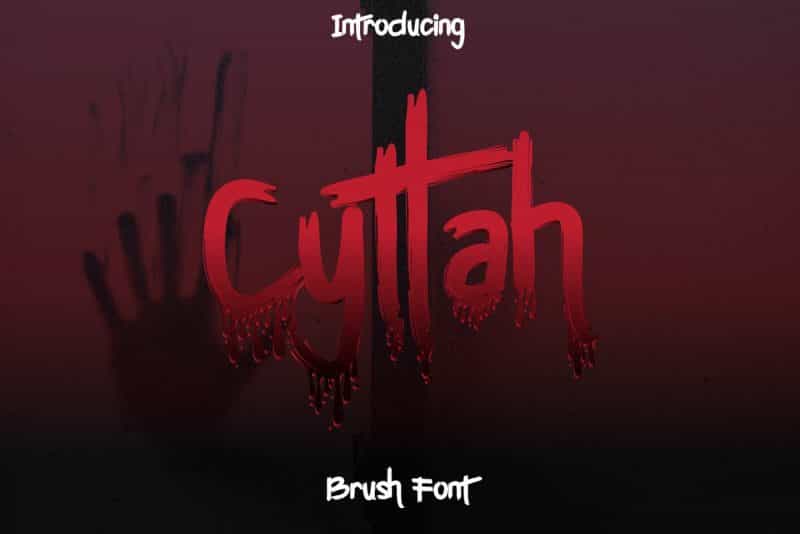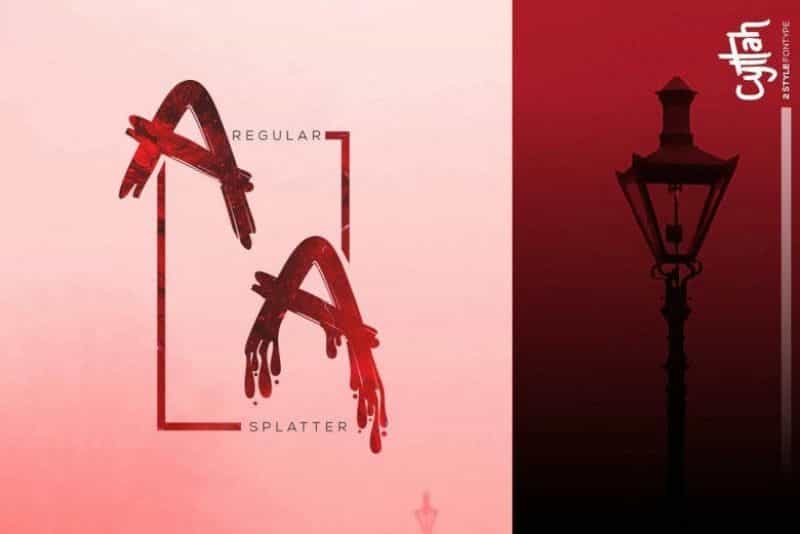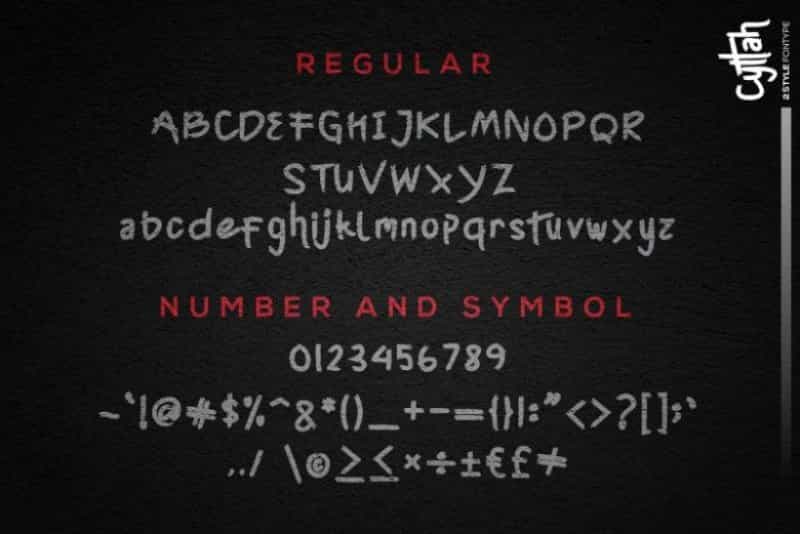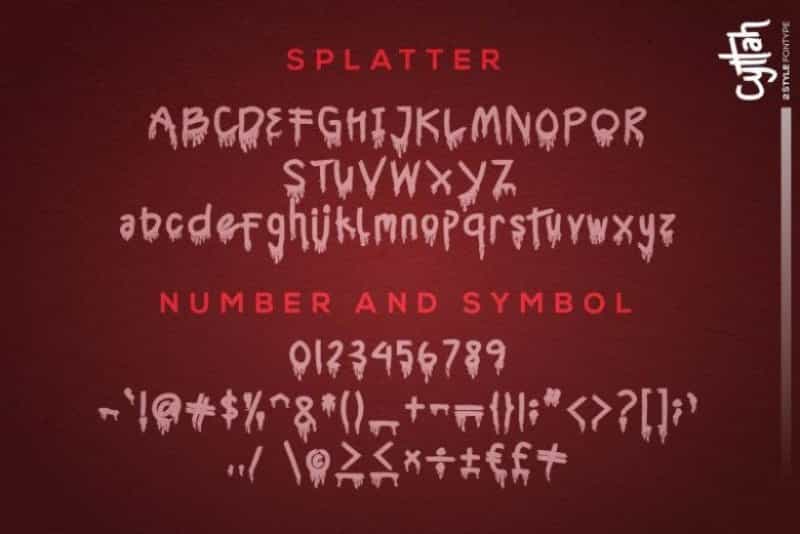
This is a Graffiti brush font, with a dark horror theme. This new rebel street yet rock pop culture modern display font. It unique and exclusive glyph. Graffiti font for branding, logo, stationery, business card, signage, flyer, brochure, invitation etc.